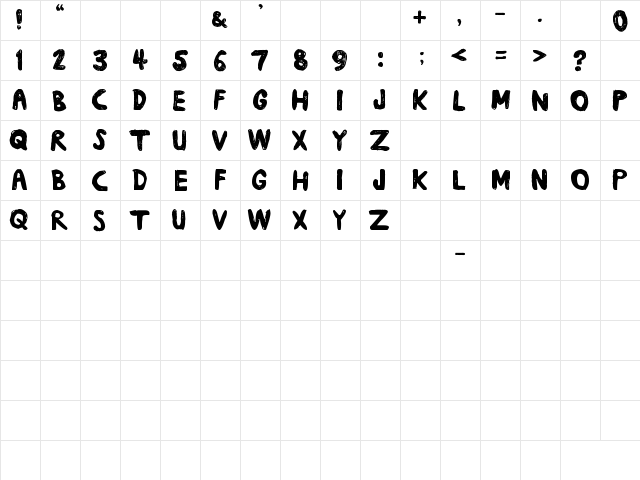
daub Regular
Design Context for daub Typeface
daub is a composed and adaptable typeface that performs quietly and consistently across a wide range of design contexts.